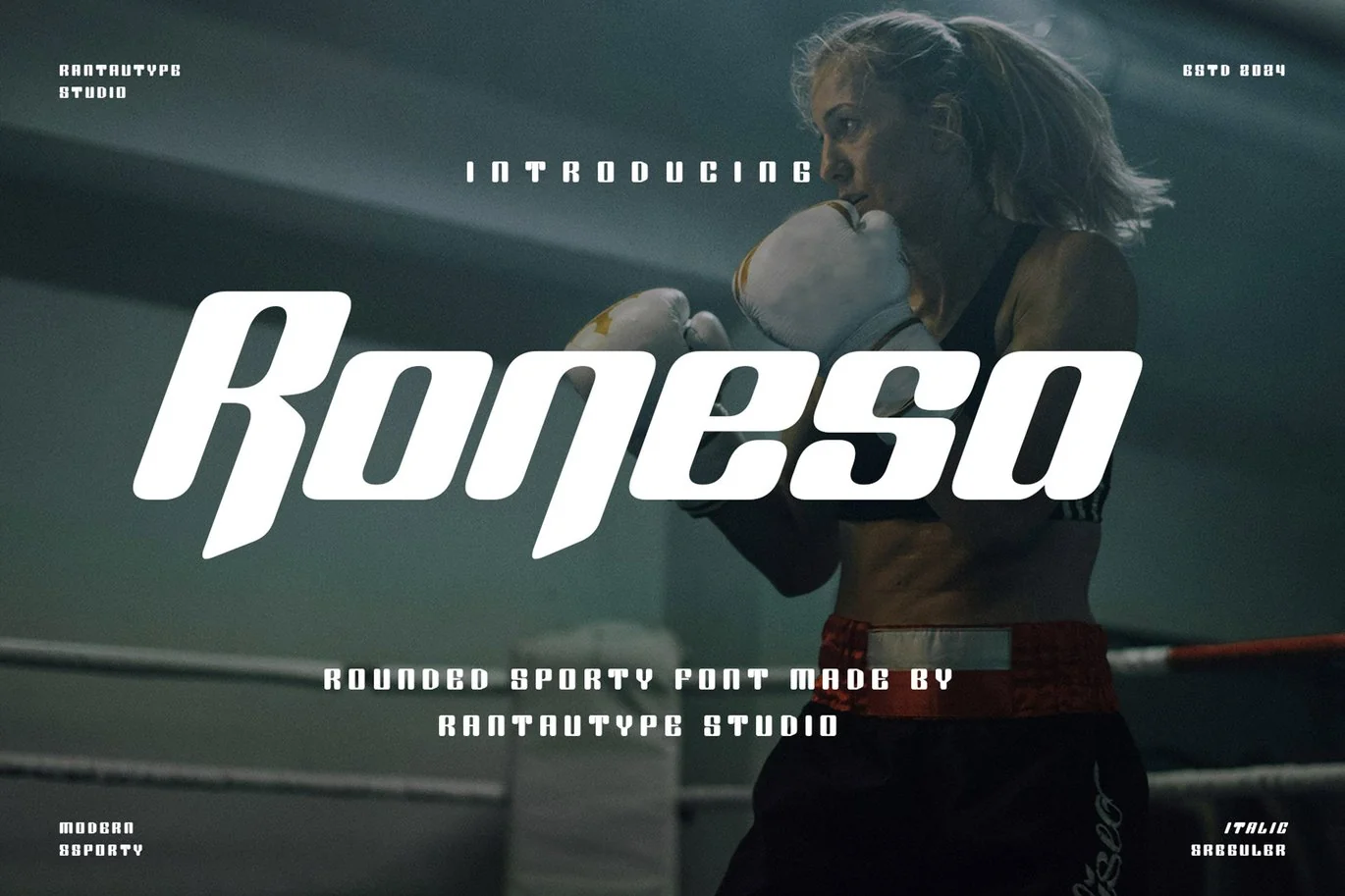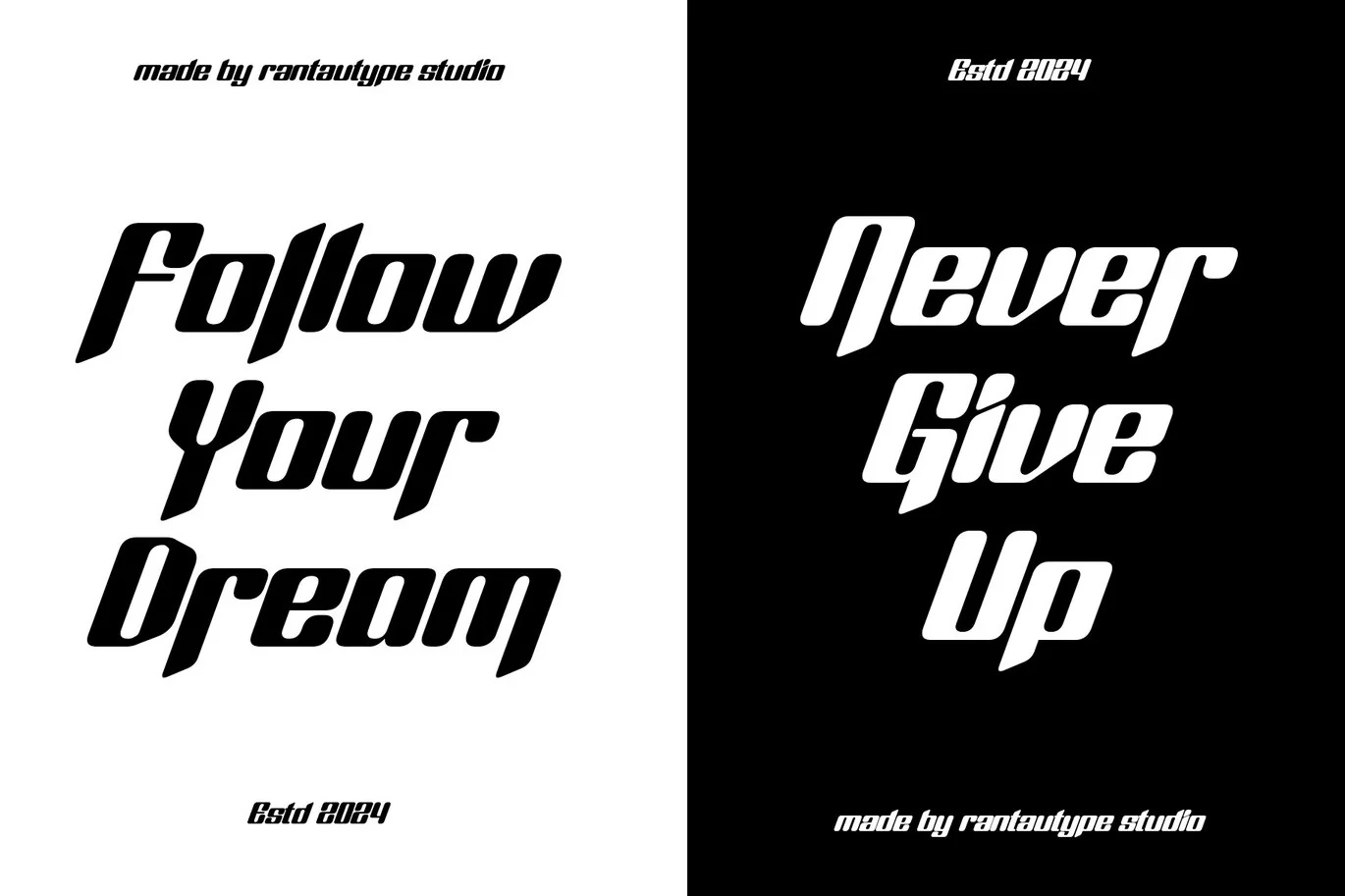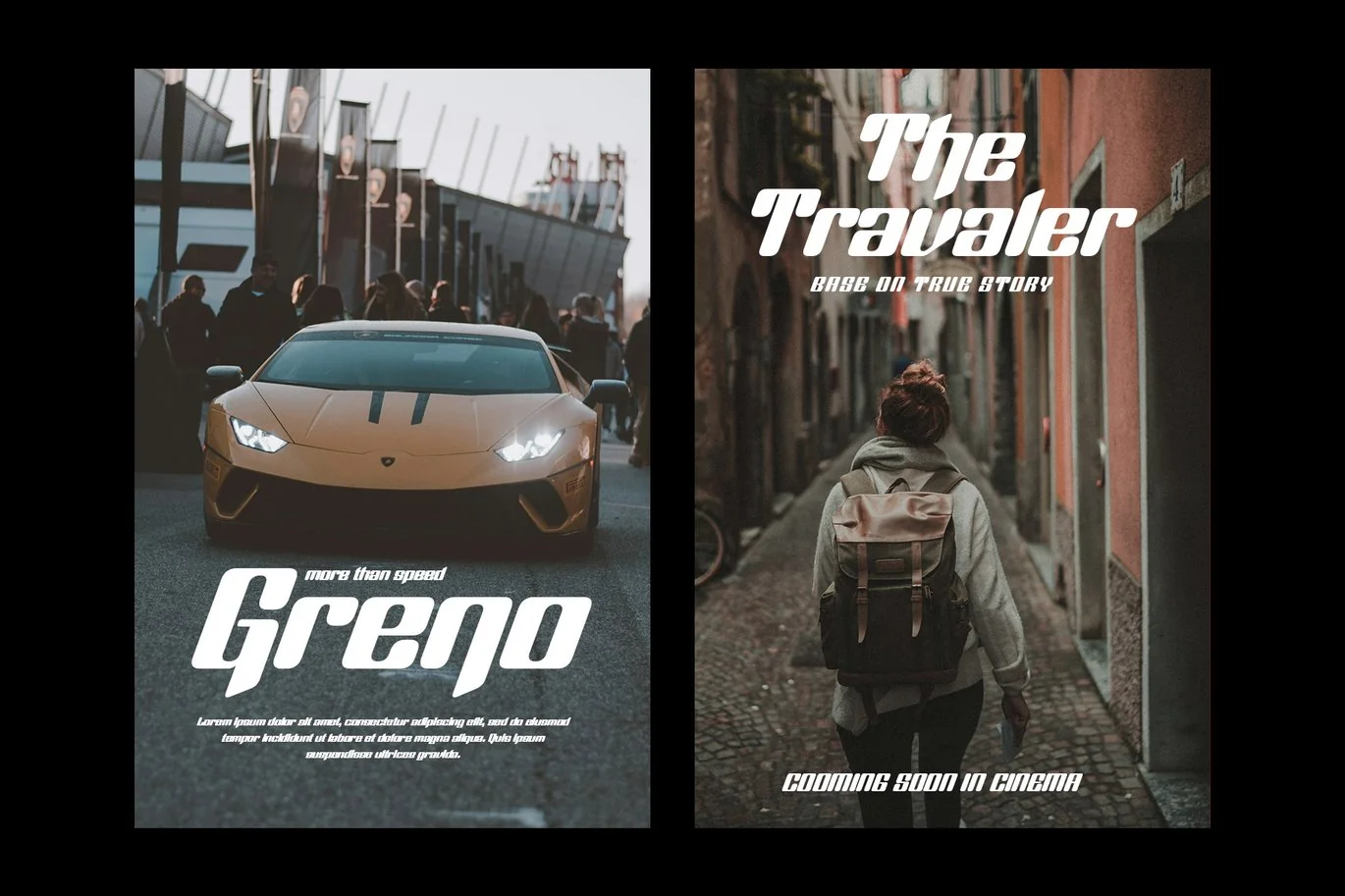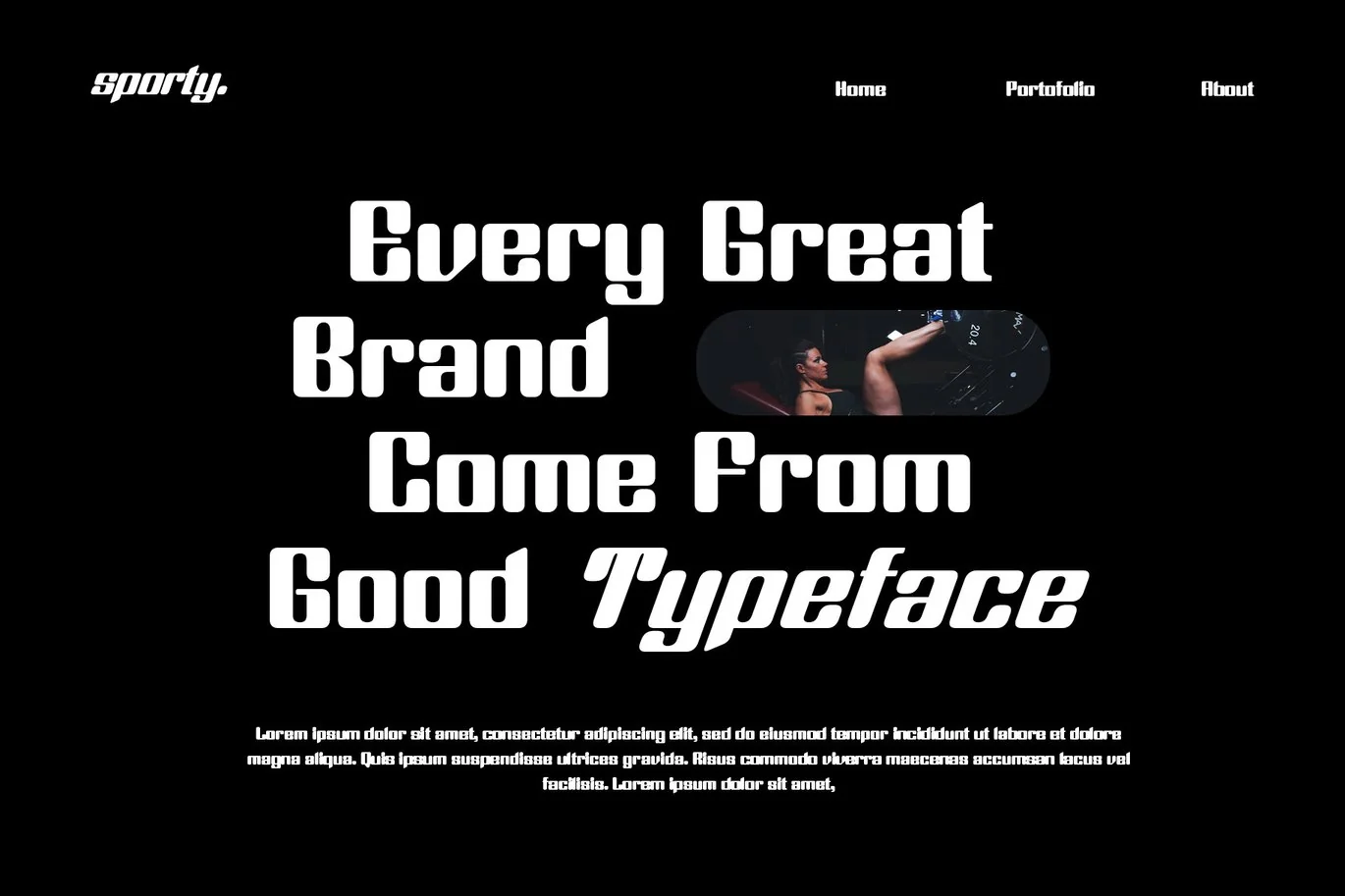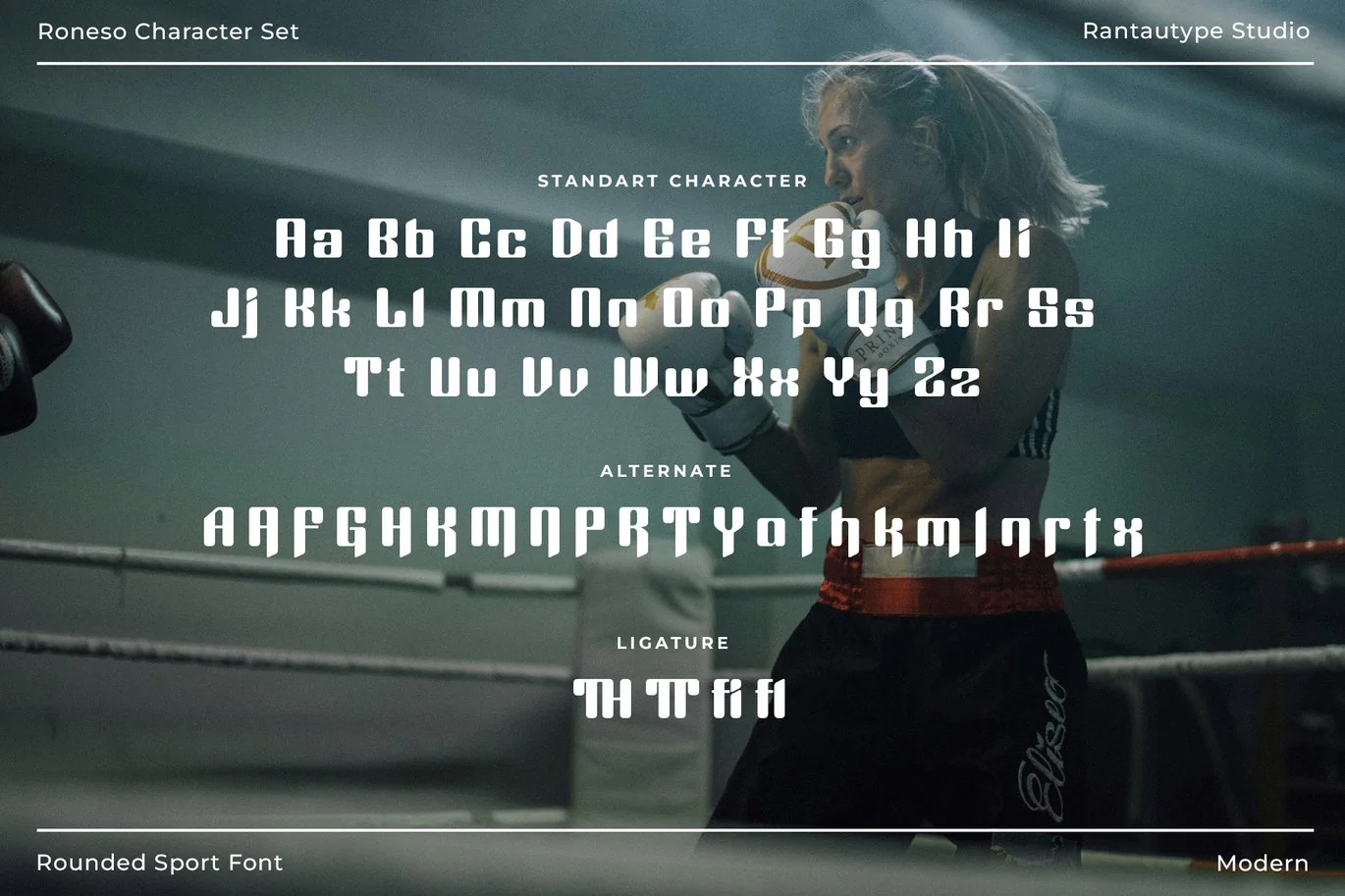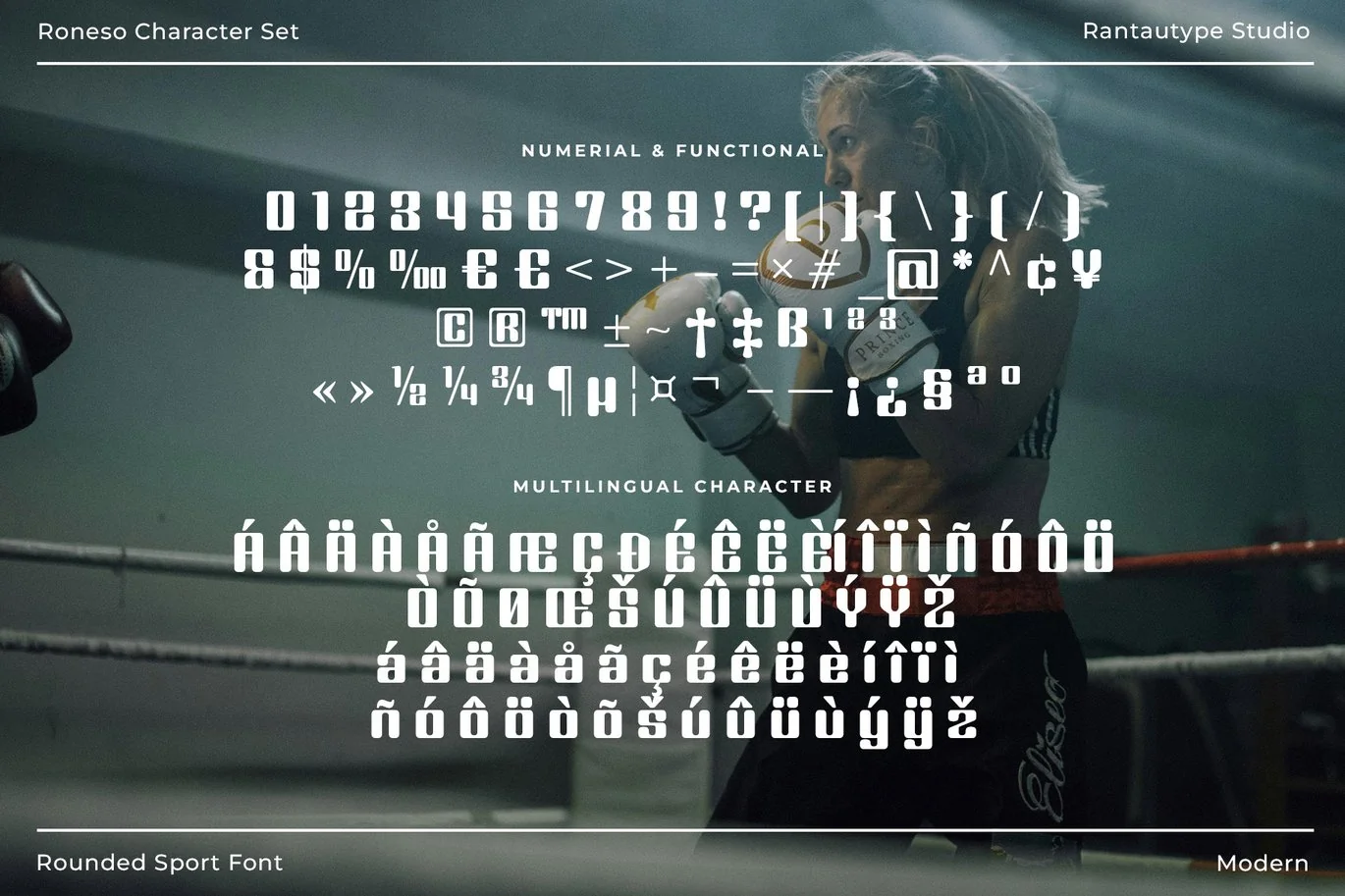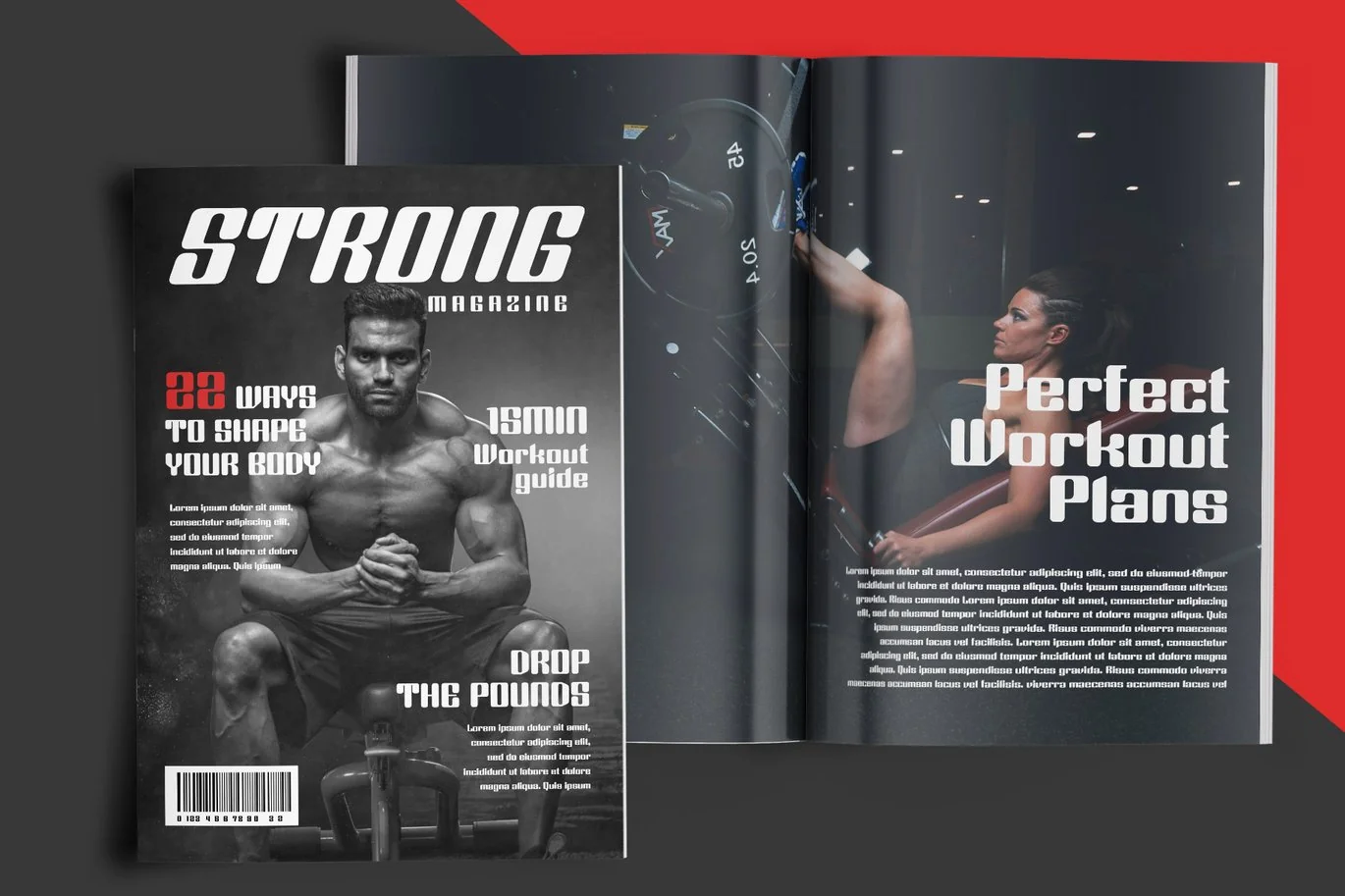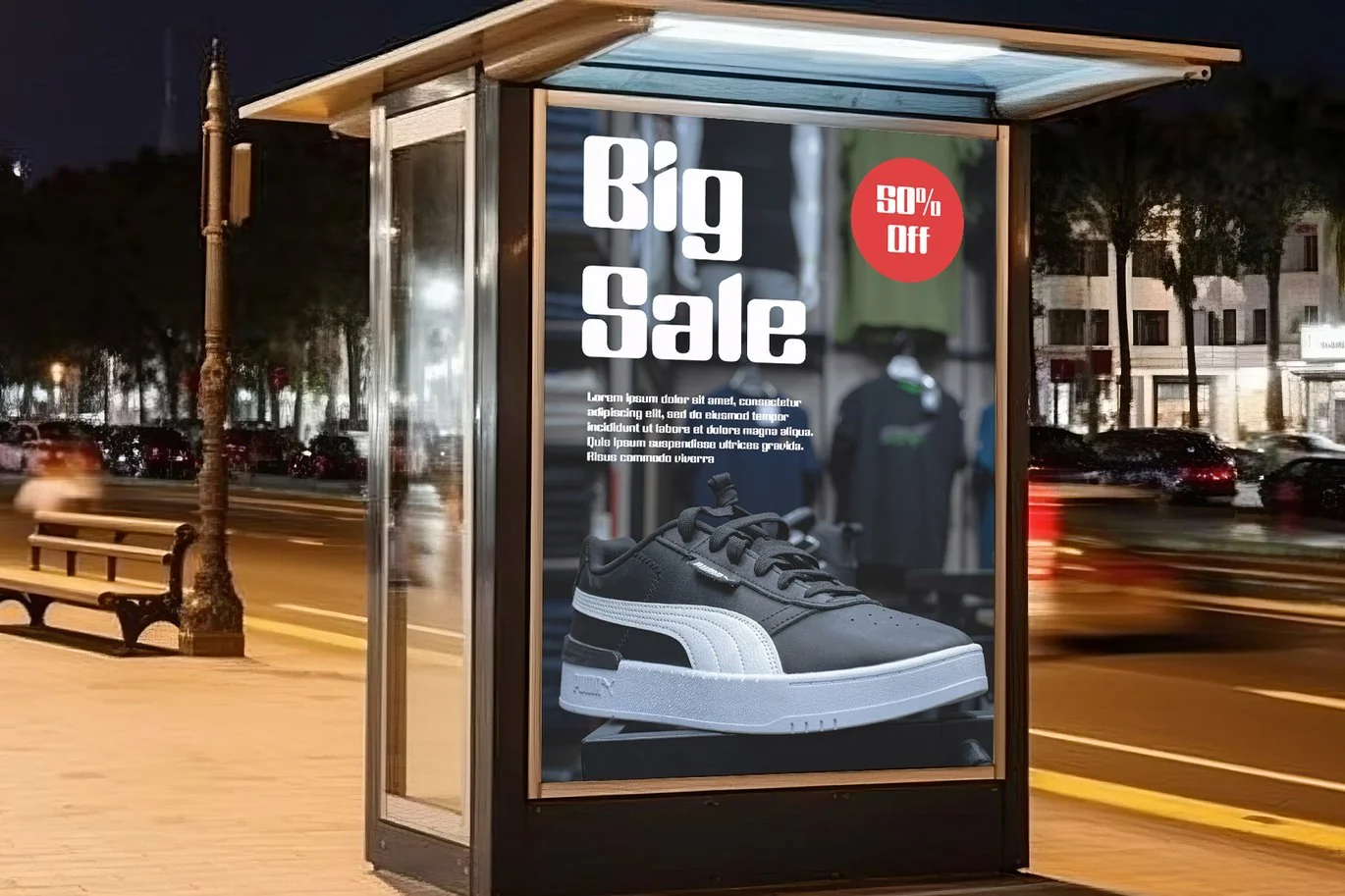
Ronesa Rounded Sport Font
Ronesa is modern sport font with rounded character. Ronesia bring sport visual design era into more fun with natural rounded shape without losing the sporty impression! Ronesa is a perfectly choice for any creative endeavor, chic, lifestyle design such as logotype, advertisements, watermark on photography, stationery, branding project, display and magazine, invitation, corporate brand, product design, label, business project and many other project with modern or sport touch.